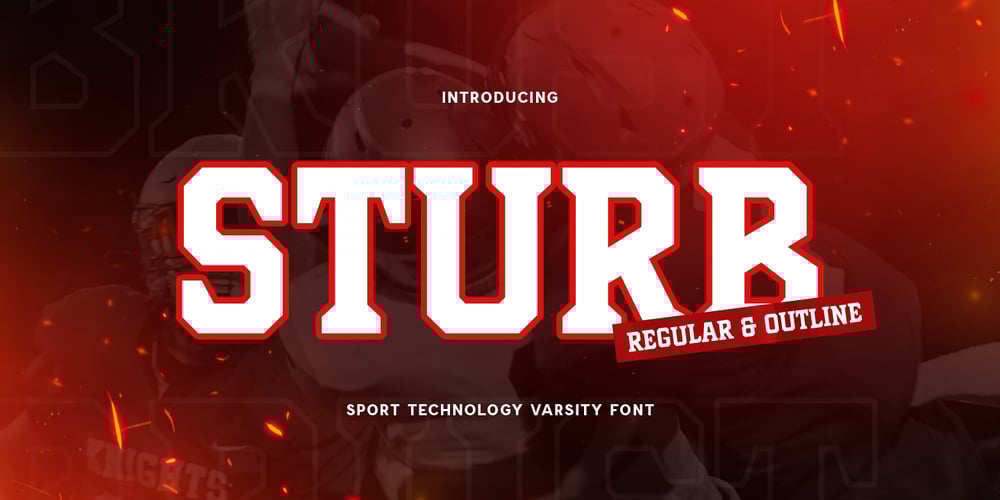
Sturb Font Family was designed by Zamroni Hamzah and published by Sensatype Studio. Sturb contains 1 styles and family package options. Introducing Sturb, a font that fuses the energy of sports with the cutting-edge feel of technology. Designed for e-sports and varsity-inspired projects, Sturb brings a bold and dynamic edge to your designs, making it perfect for gaming, sports branding, and tech-savvy projects.The Story Behind Sturb:SturbThe high-octane world of sports and the sleek, innovative aesthetics of modern technology inspired Brust. This font captures the spirit of competition and the drive for excellence, combining traditional varsity elements with a futuristic twist. Each character in Sturb is crafted to convey strength and agility, ensuring your designs stand out in the competitive world of e-sports and sports branding.Sturb Font Features: Athletic Design: Bold and dynamic, perfect for sports and e-sports projects. Technological Edge: Sleek lines and modern curves that reflect high-tech aesthetics. Versatile Usage: Ideal for logos, team branding, gaming interfaces, and varsity-themed designs. Multiple Formats: Available in 4 formats for all your design needs. High Impact: Clear and powerful, ensuring your message is forcefully delivered. Dynamic Characters: Unique letterforms that add energy to your designs. Inspirational Previews: Includes sample designs to ignite your creativity. Perfect For: E-sports Teams: Create bold and memorable logos and branding for gaming teams. Sports Branding: Design dynamic logos, uniforms, and merchandise for sports teams. Gaming Interfaces: Develop sleek and modern interfaces for gaming applications. Varsity Projects: Add a competitive edge to school projects, yearbooks, and more. With Sturb, your designs will embody the strength and innovation of the sports and technology worlds. Whether you’re working on e-sports branding, sports merchandise, or tech projects, Sturb provides the perfect combination of modern design and athletic energy. Dominate your design game with Sturb, and let your creativity lead the way to victory.